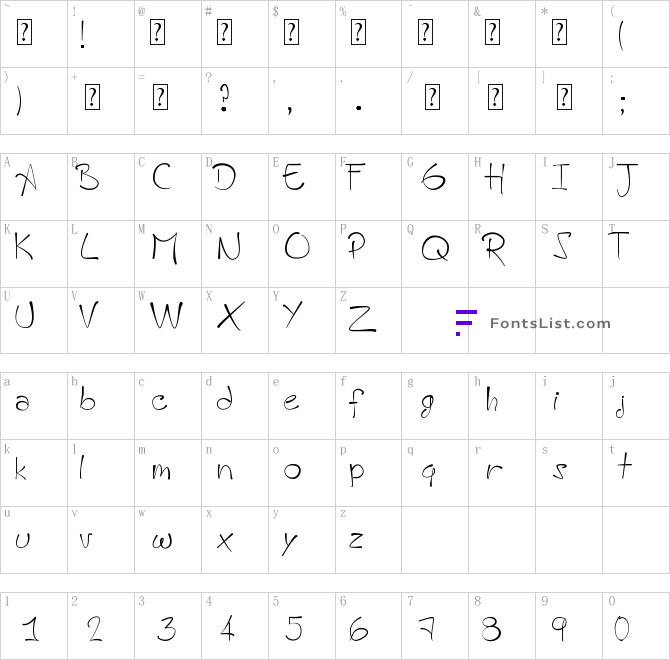
- Font Name:A HandMade Font
A-HandMade-Font.otf is a very beautiful artistic font, A-HandMade-Font.otf is widely used in the design and printing of various books and pictures,A-HandMade-Font.otf has a strong visual impact,A-HandMade-Font.otf is a commonly used font in newspapers, magazines and books, and is used in posters, e-commerce Poster design, store design, logo design, font design and other fields.A-HandMade-Font.